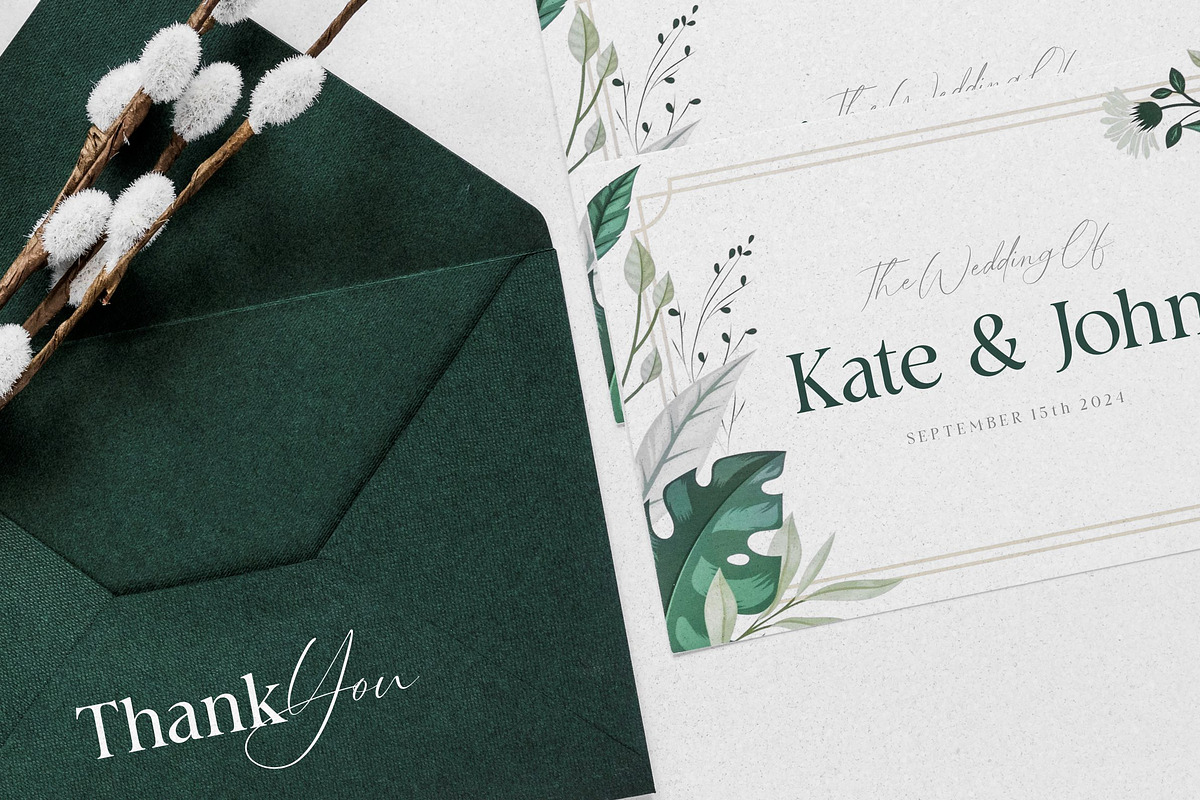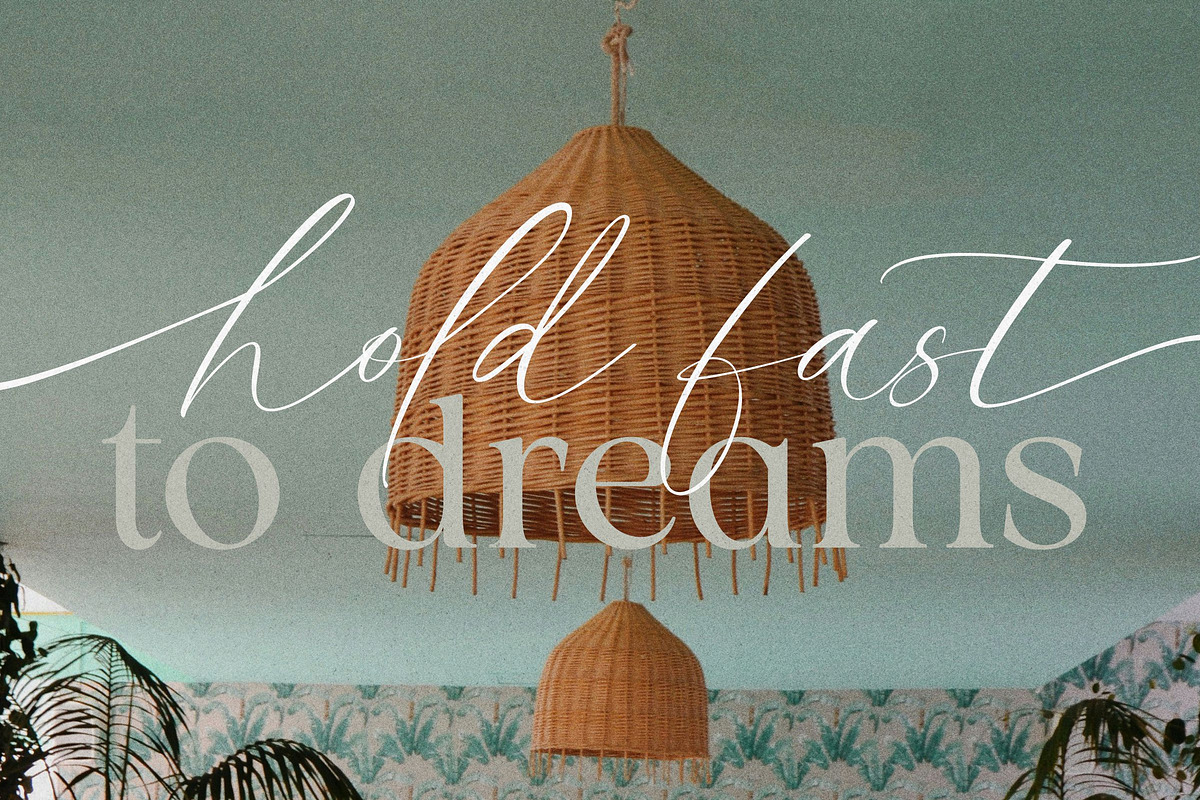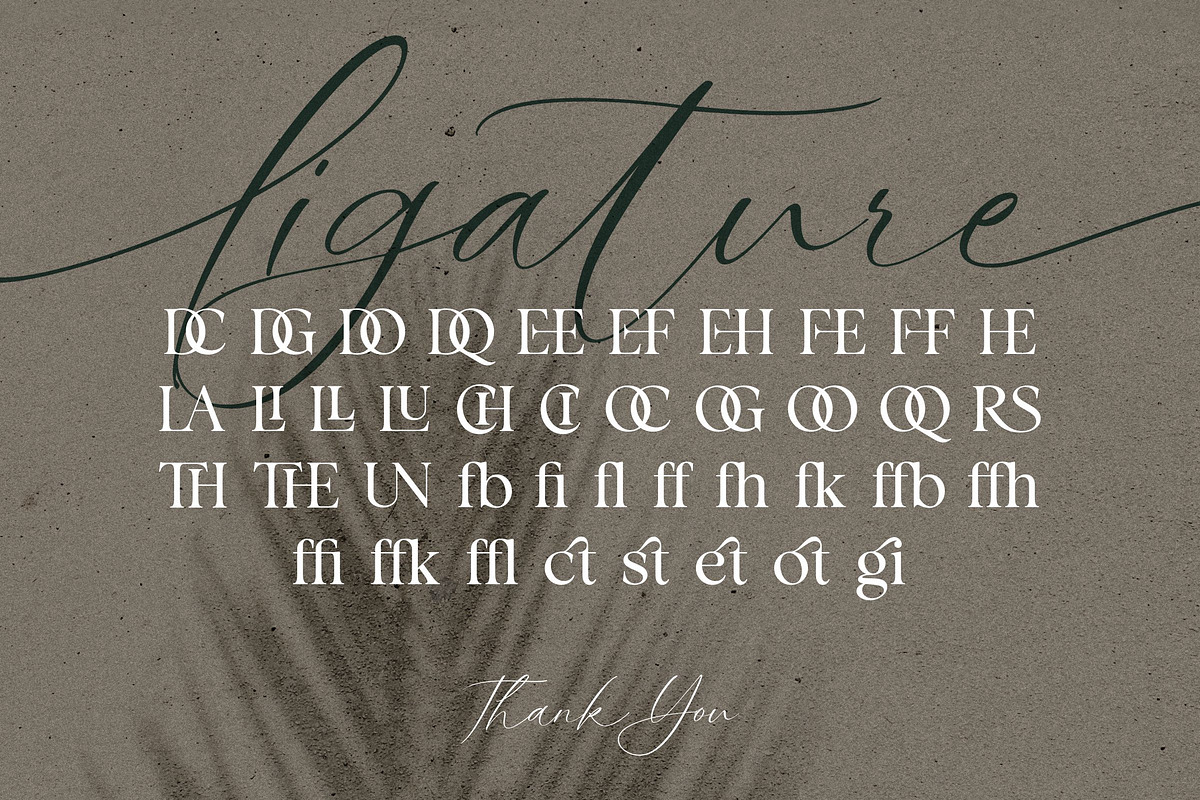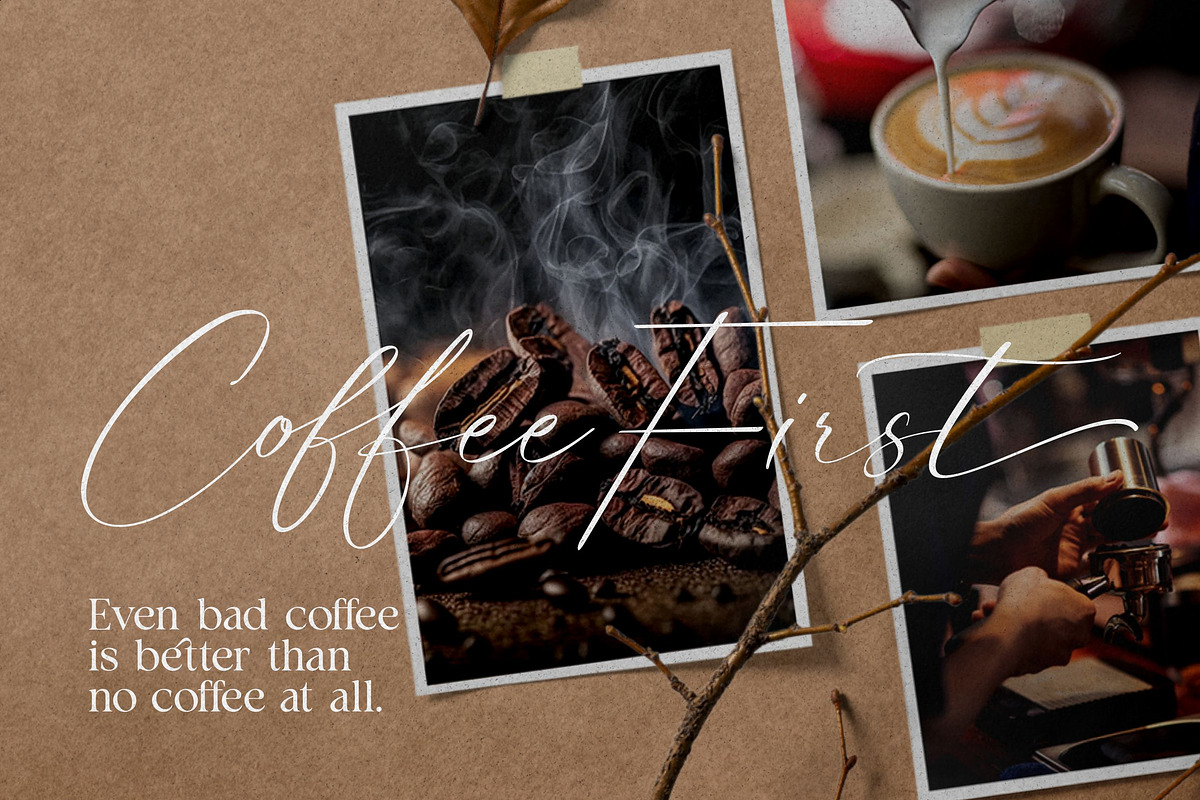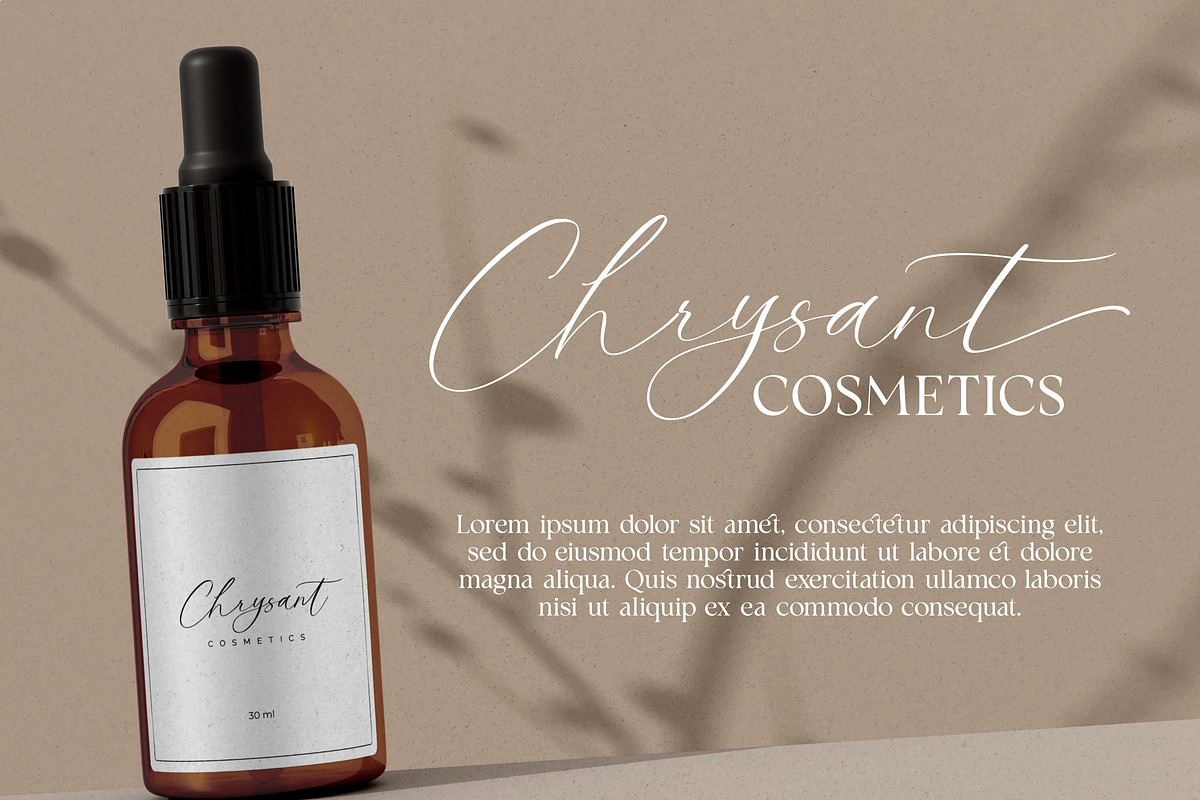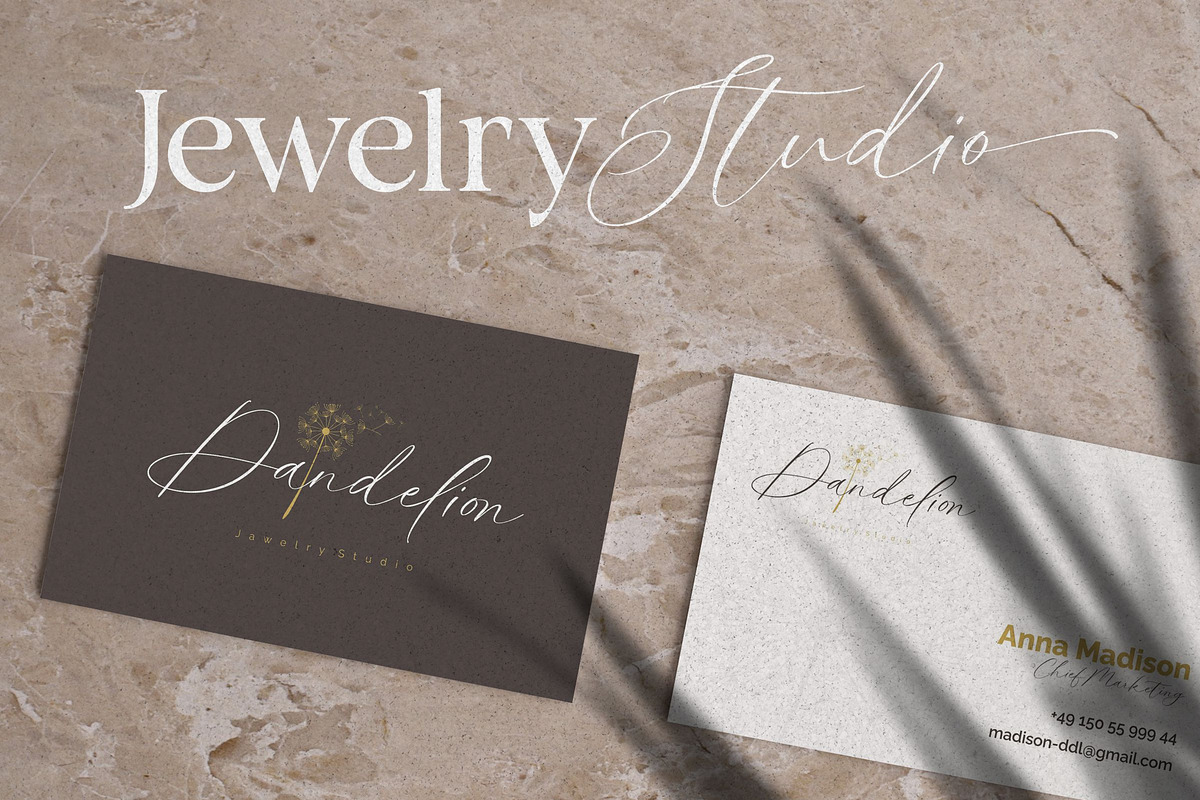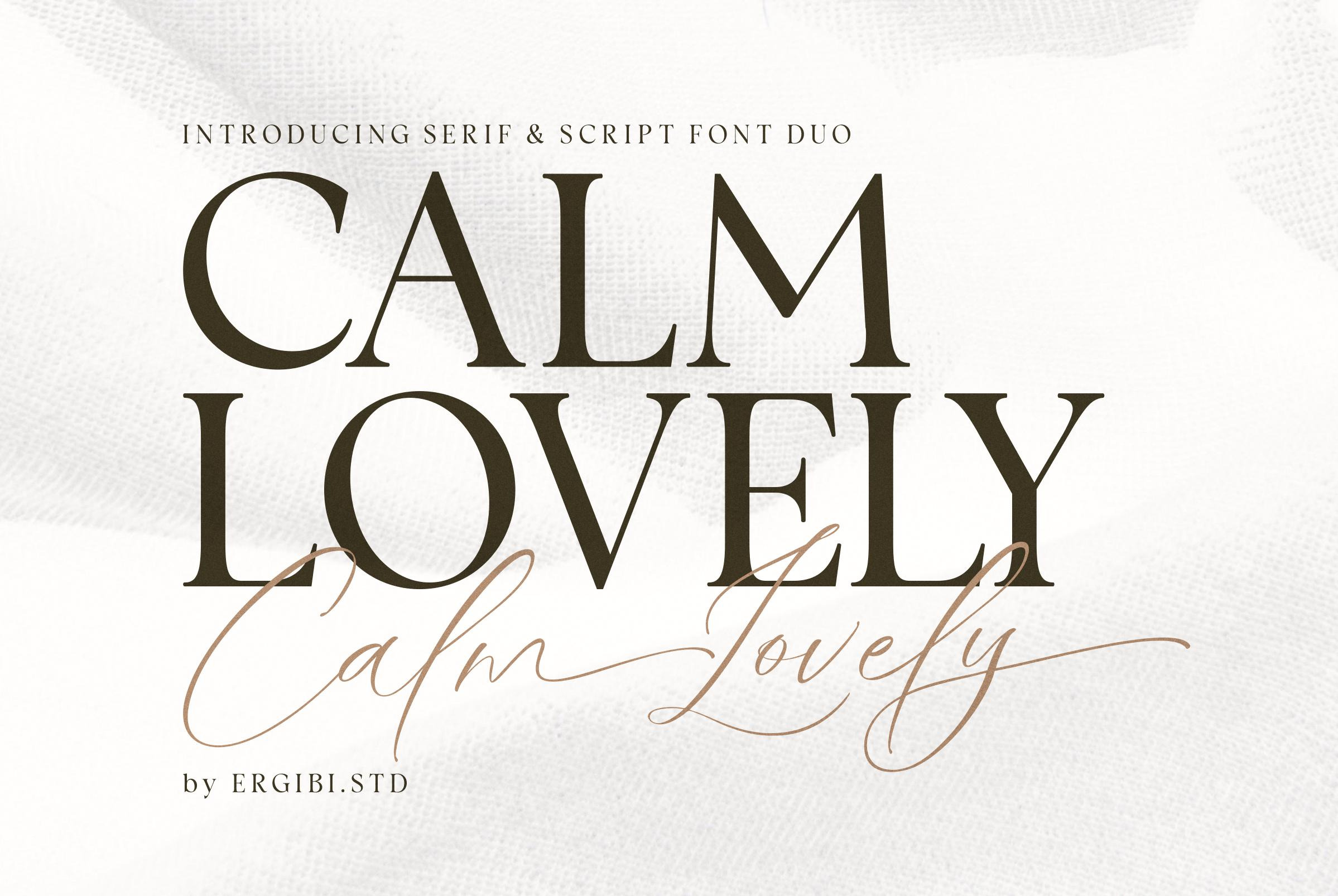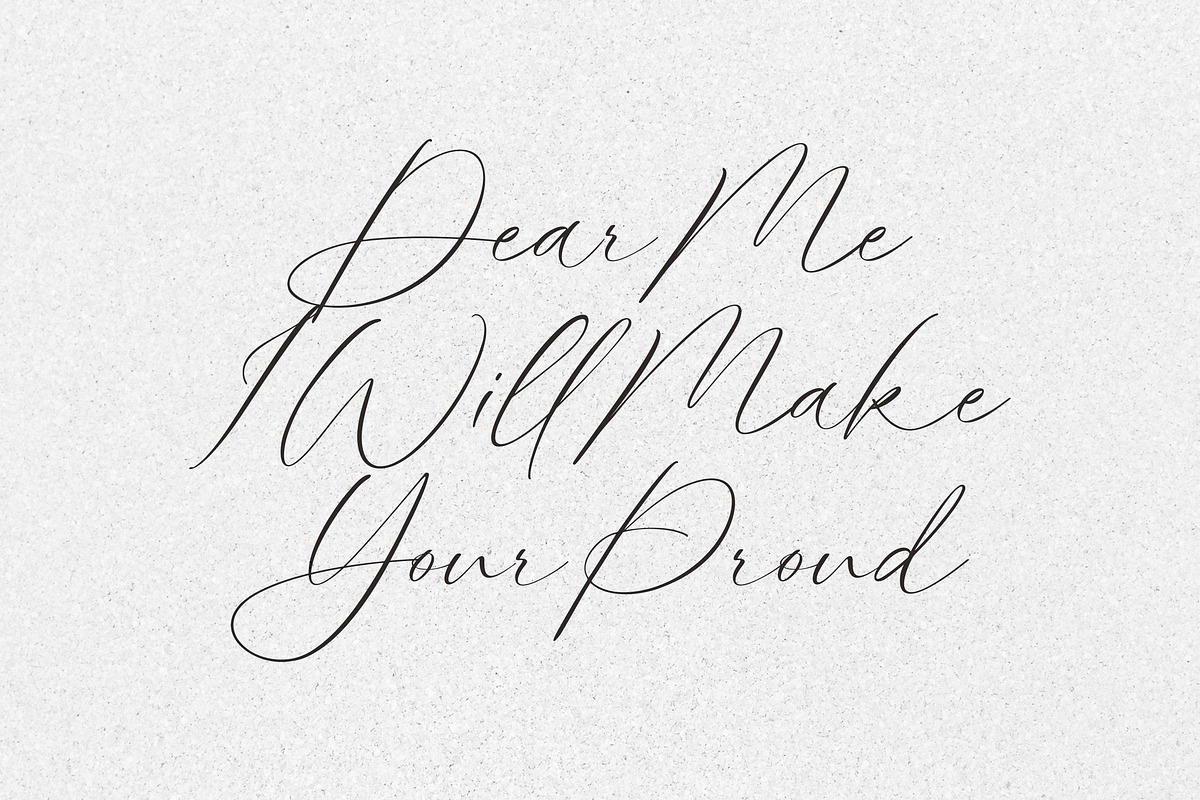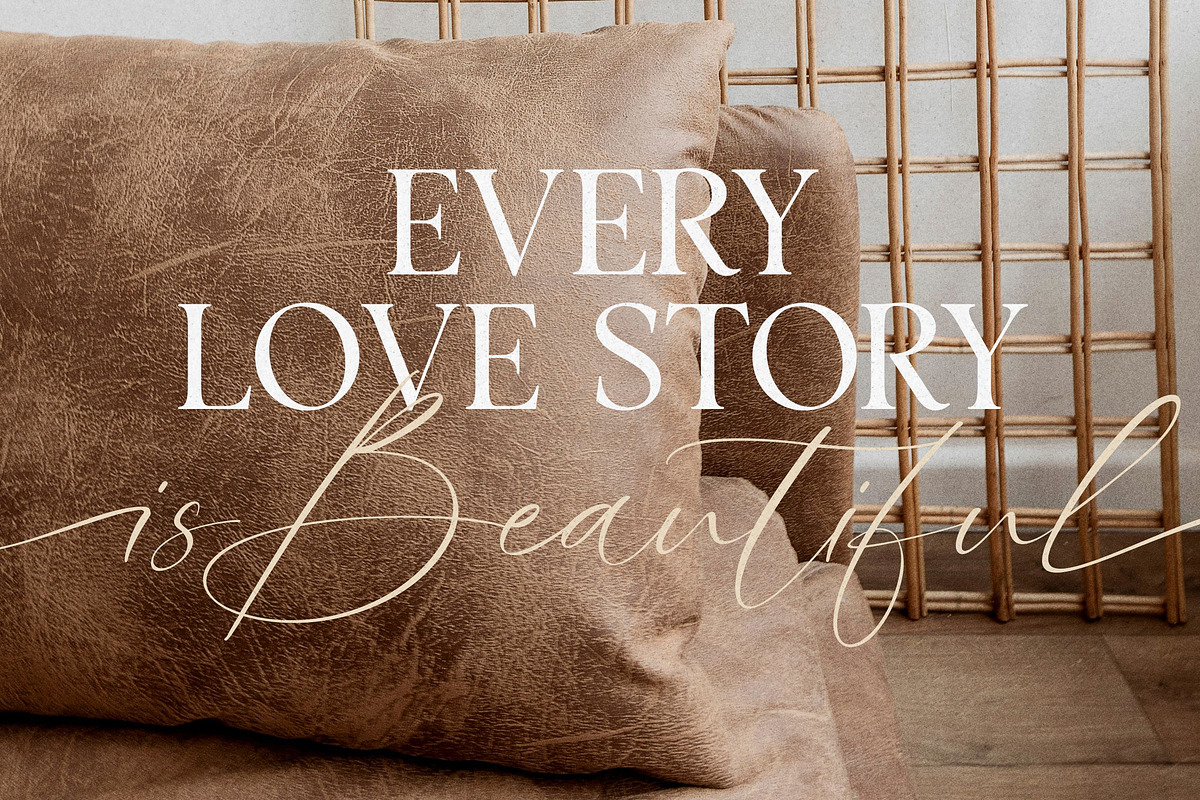
Calm Lovely - Font Duo
Calm Lovely is Modern Duo, these fonts are of two types serif and script. Display Serif inspired by famous logo and stylish, This typeface has been made carefully to make sure its premium quality and luxury feel. Calm Lovely perfectly for headlines, wedding, social media, logos, posters, packaging, T-shirts,coffee shops, restaurants, magazine’s headers, signs or gift/post cards,cafe’s and weddings or any type of advertising purpose.